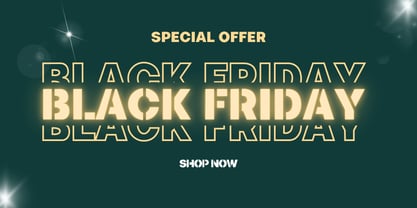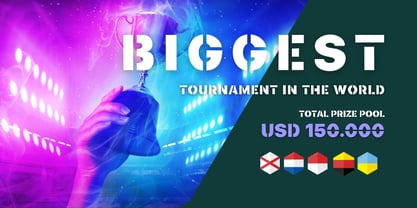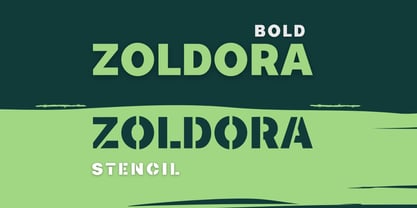
Zoldora
by Zanfonts
The Zoldora Font Family was designed by Ari Bundi Setiawan and published by Zanfonts. Zoldora contains 2 styles and family package options. More about this family
ZOLDORA is a geometric sans-serif typeface built for bold visual clarity and modern precision. Engineered with consistent stroke weights, sharp horizontal and vertical terminals, and tight letter spacing, it delivers high-impact readability in any size. Its forms are based on strict geometric constructions, combining perfect circles and straight lines for a strong, minimal appearance. The uniform rhythm and clean proportions make it an ideal choice for headlines, logos, UI/UX interfaces, tech branding, and editorial layouts where strength and clarity are essential. ZOLDORA supports multilingual characters and is optimized for both print and screen display.
Designers: Ari Bundi Setiawan
Foundry: Zanfonts